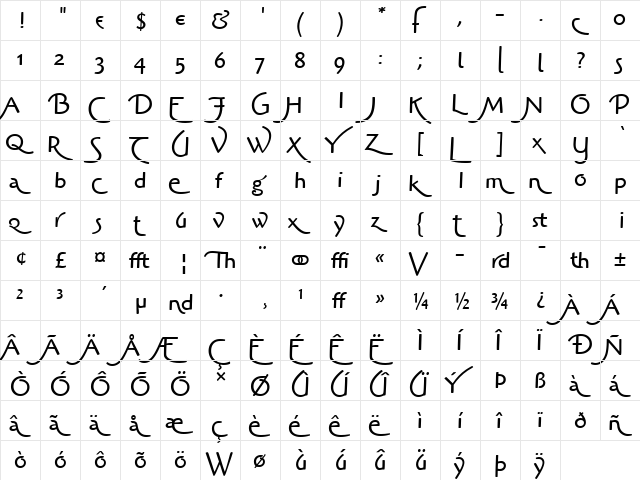
HighlanderSwashITCTT Book
| Foundry | International Typeface Corporation |
| Designer | David Farey |
Design Context for HighlanderSwashITCTT Typeface
HighlanderSwashITCTT brings a calligraphic fluidity to the page — its connecting strokes and expressive curves give it an unmistakably human quality.
Font Pairing: Combine HighlanderSwashITCTT with a simple geometric sans for maximum contrast — the tension between flowing curves and clean structure is a classic typographic pairing.
Pro Tip: Pair HighlanderSwashITCTT with a clean sans-serif for supporting text. The contrast between fluid script and geometric structure creates an elegant typographic hierarchy.